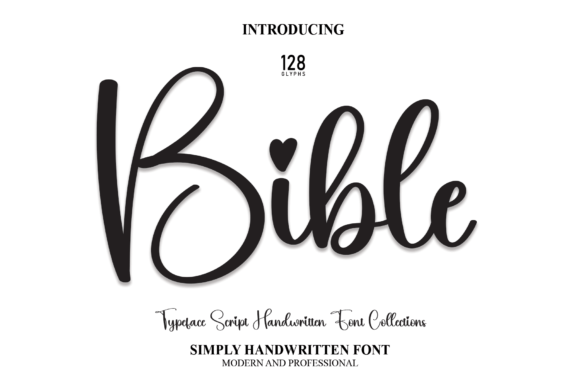
The Bible Font: A Romantic and Sweet Calligraphy Typeface
Have you ever been working on a design project, pouring your heart and soul into it, only to realize that it’s missing that special something? I recall a project where I was tasked with creating a luxurious wedding invitation suite. The client wanted something elegant, sophisticated, and truly unique. As I scoured the internet for the perfect font, I stumbled upon the Bible font – a romantic and sweet calligraphy typeface that would change the game.
The Bible font is a beautiful, elegant script that features characters that dance along the baseline. Its flowing lines and delicate curves add a touch of luxury to any design project. In this article, we’ll dive into the world of the Bible font, exploring its features, how to use it, and some similar fonts you might love.
- ✨ Elegant and sophisticated design that’s perfect for luxury projects
- ✅ Beautifully crafted characters that dance along the baseline
- 💫 Highly legible, even at smaller font sizes
- 🎨 Versatile and can be used for a variety of design projects, from wedding invitations to branding
- ⚠️ Some characters may not work well at very small font sizes, so be sure to test it out before finalizing your design
- 🤔 Limited availability of certain OpenType features, such as ligatures and stylistic alternates
The Bible font was inspired by traditional calligraphy and the beauty of handwritten script. Its creator was drawn to the elegance and sophistication of classic calligraphy and sought to recreate it in a digital format. The result is a font that’s both luxurious and romantic, perfect for adding a touch of elegance to any design project.
A: The Bible font is a romantic and sweet calligraphy typeface with characters that dance along the baseline.
A: The Bible font is versatile and can be used for a variety of design projects, from wedding invitations to branding and advertising.
A: Yes, the Bible font is highly legible, even at smaller font sizes.